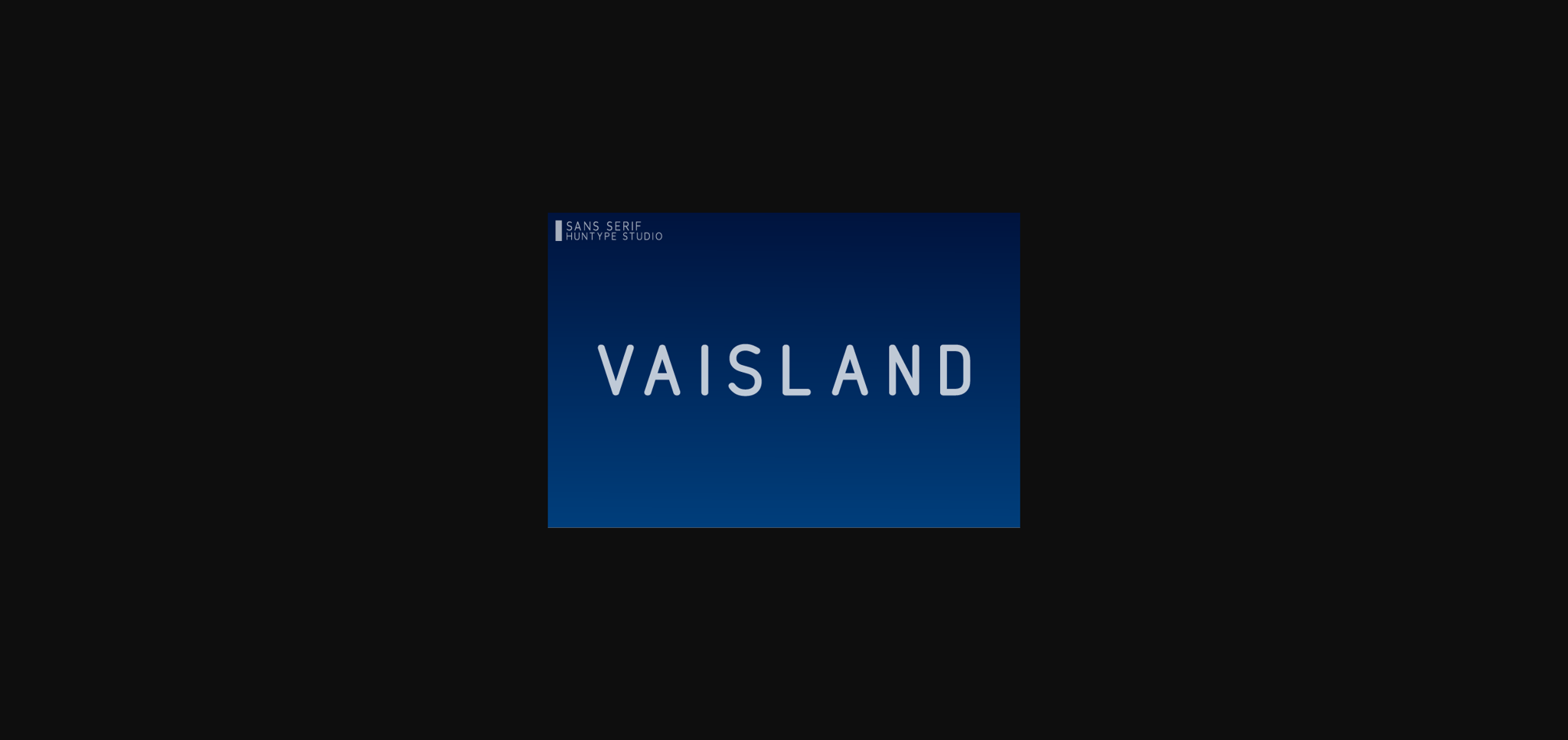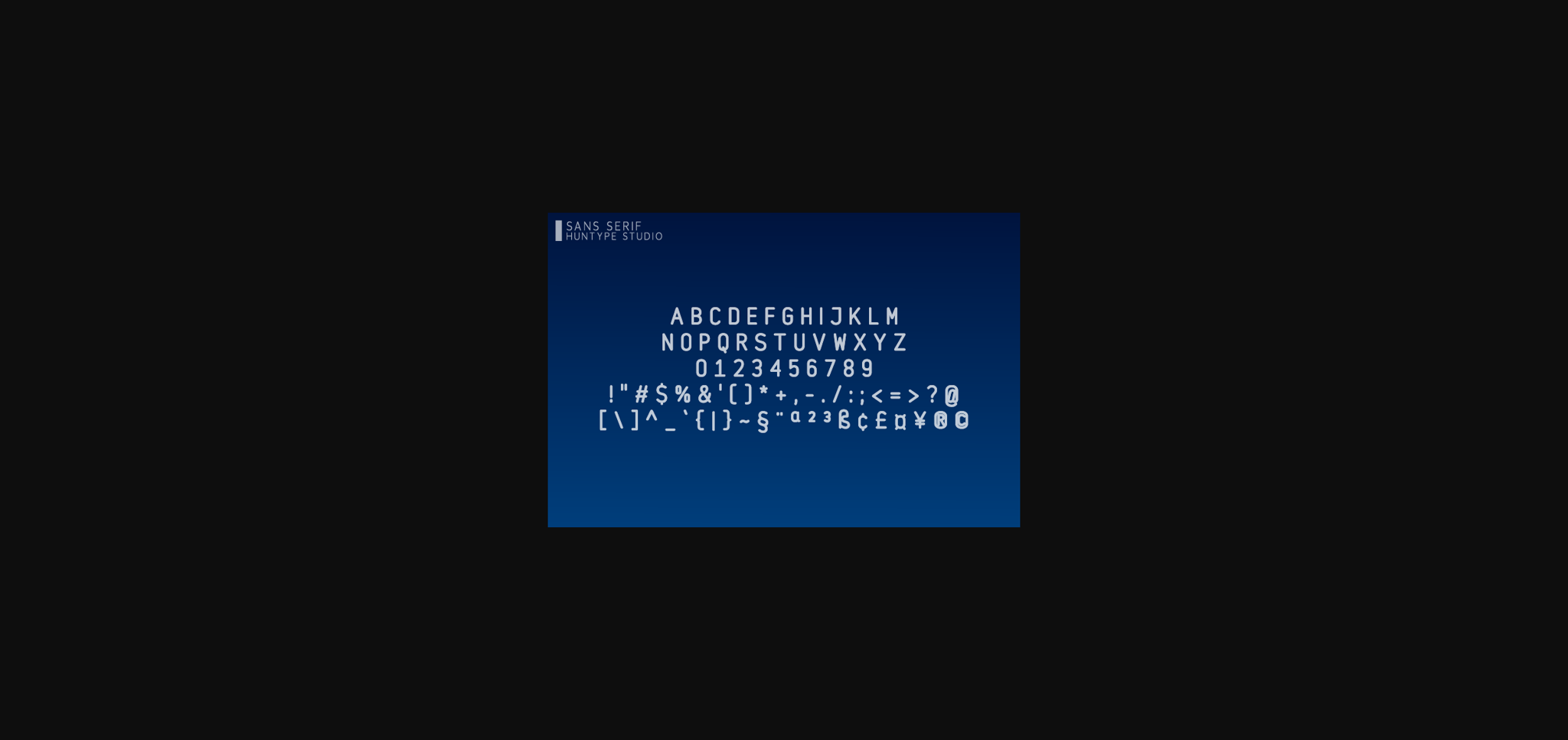
Vaisland Font
About Vaisland Font
Vaisland is a fancy, contemporary sans serif font. With its neat and beautiful arrangement of letters, this typeface will look outstanding in both formal and non-formal designs.